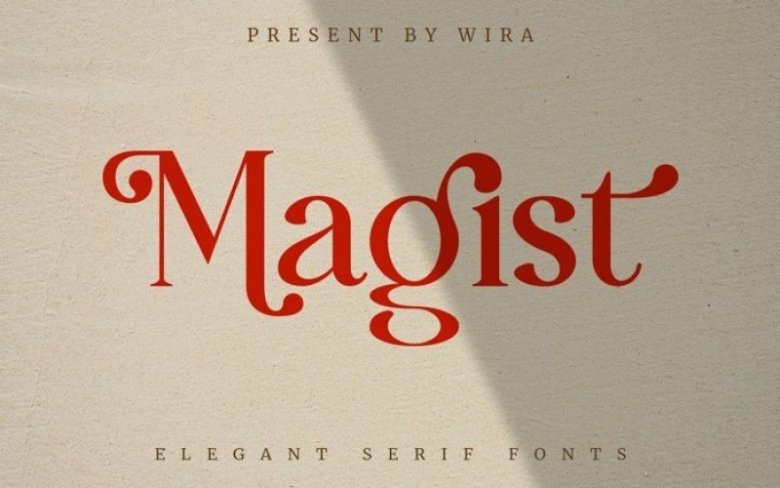
Magist Serif Font is a bold minimalist elegant fancy typeface font with tons of alternative characters, ornaments, multilingual support and unique ligatures. Made from font designer named Wirastudio.
It’s a elegant style serif font with alternatives and ligatures that create stunning logos, quotes, posts, blog posts. branding projects, magazine imagery, wedding invitations, and much more.